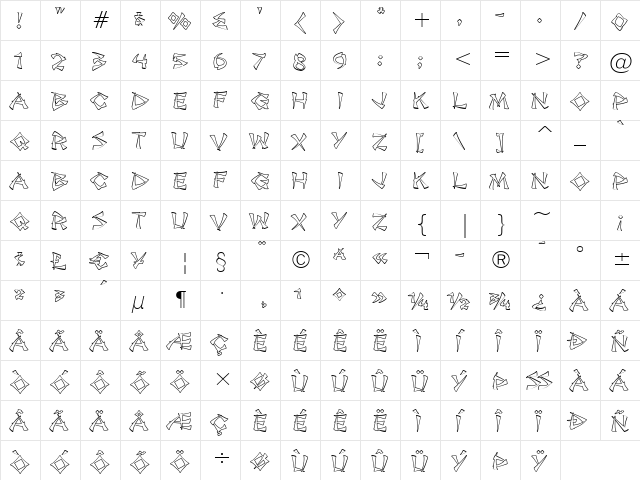
Jade Monkey BTN Outline Regular Font Preview
Jade Monkey BTN Outline Regular
Jade Monkey BTN Outline Regular Font Details
Design Context for Jade Monkey BTN Outline Typeface
Jade Monkey BTN Outline is built around its visual character rather than neutral utility — its distinctive forms are designed to make an impression at display sizes.
Font Pairing: Pair with a clean neutral sans-serif for body copy to let Jade Monkey BTN Outline's character lead without overwhelming the composition.
Pro Tip: Use Jade Monkey BTN Outline exclusively at display sizes — it was designed to be seen, not read at length. Let a neutral companion handle body copy.